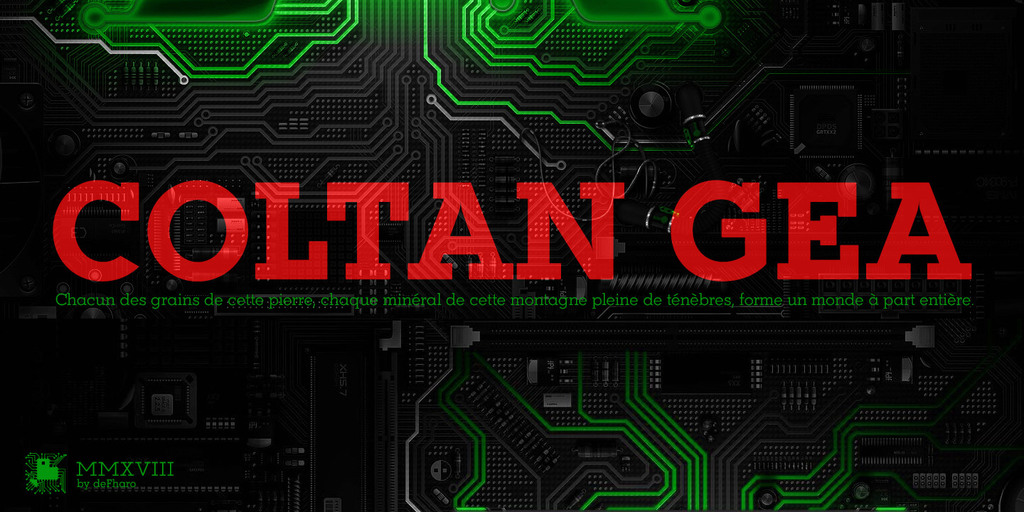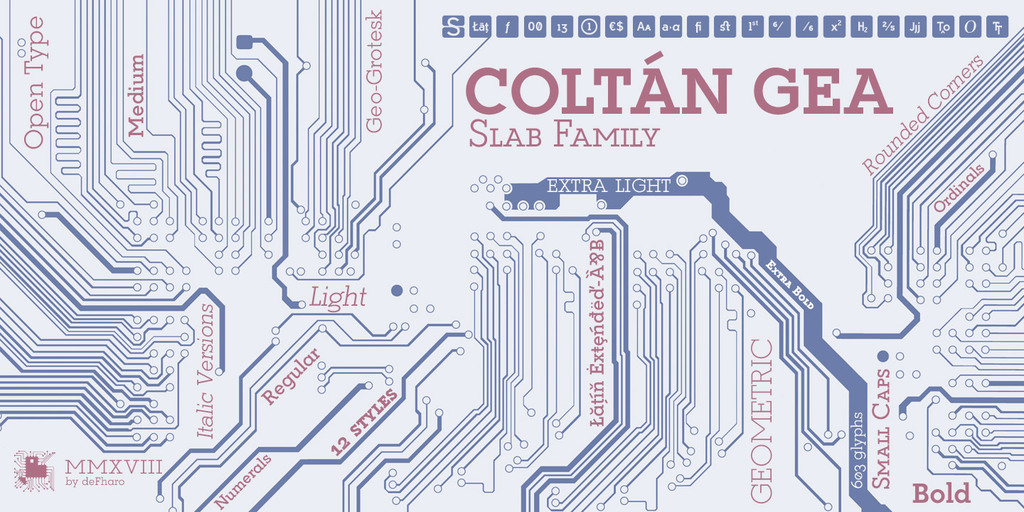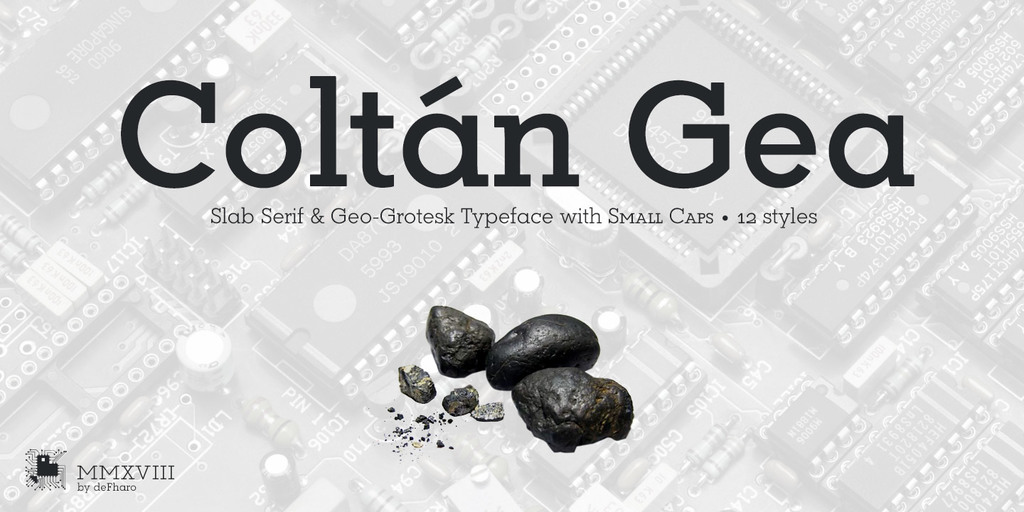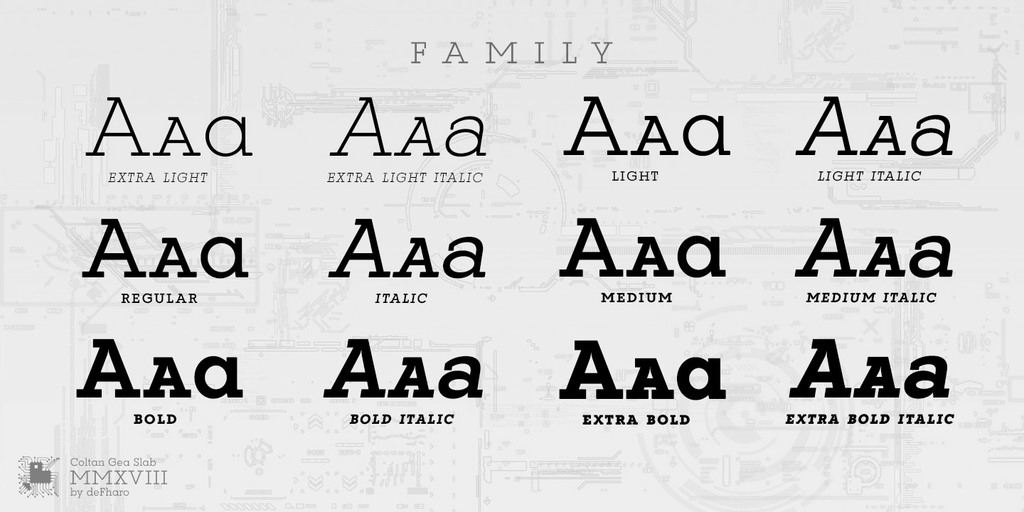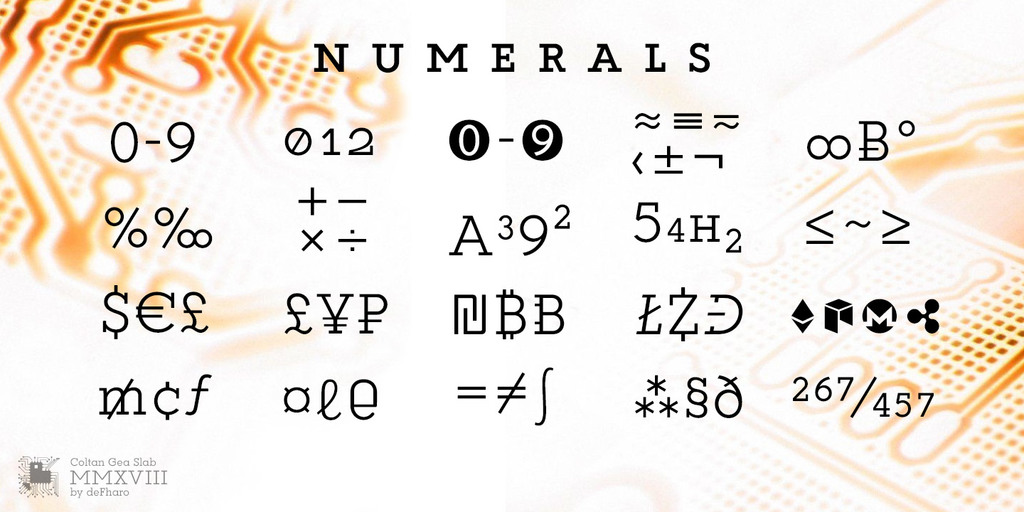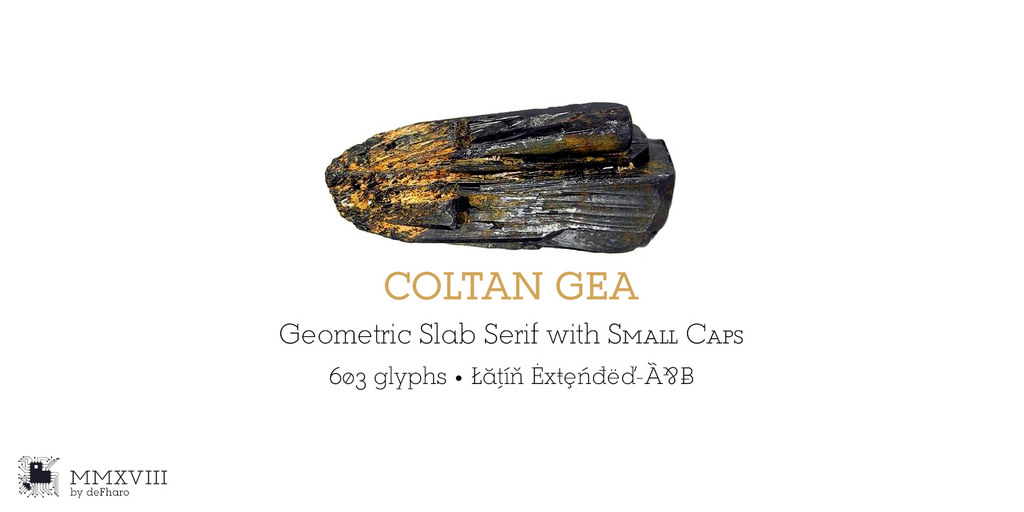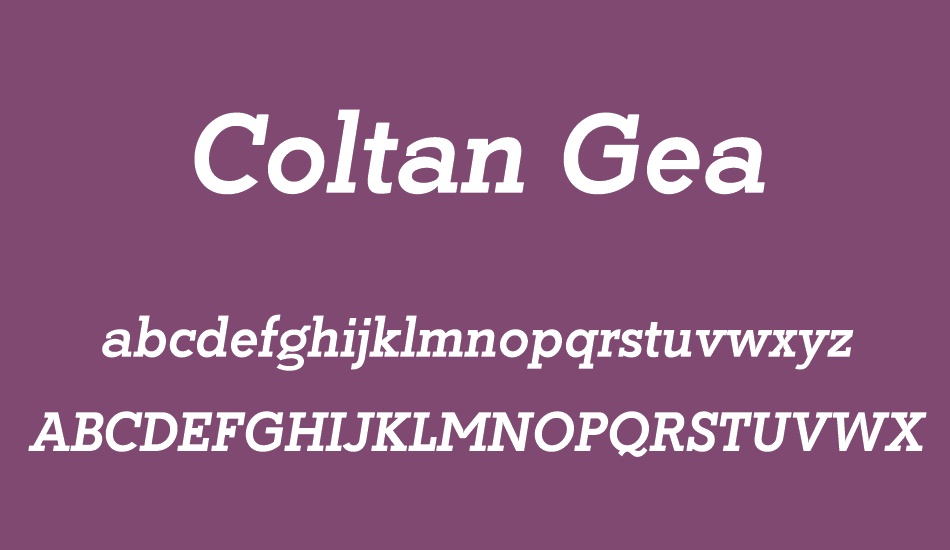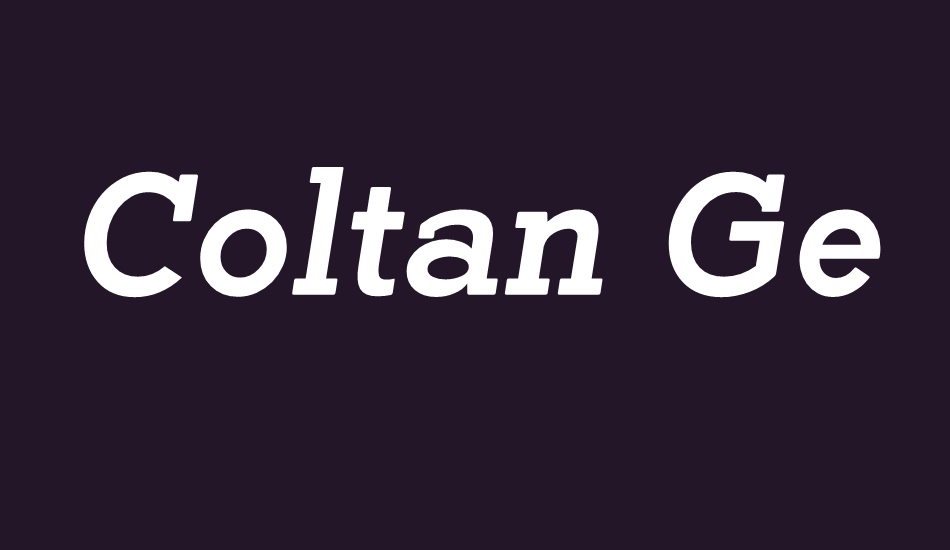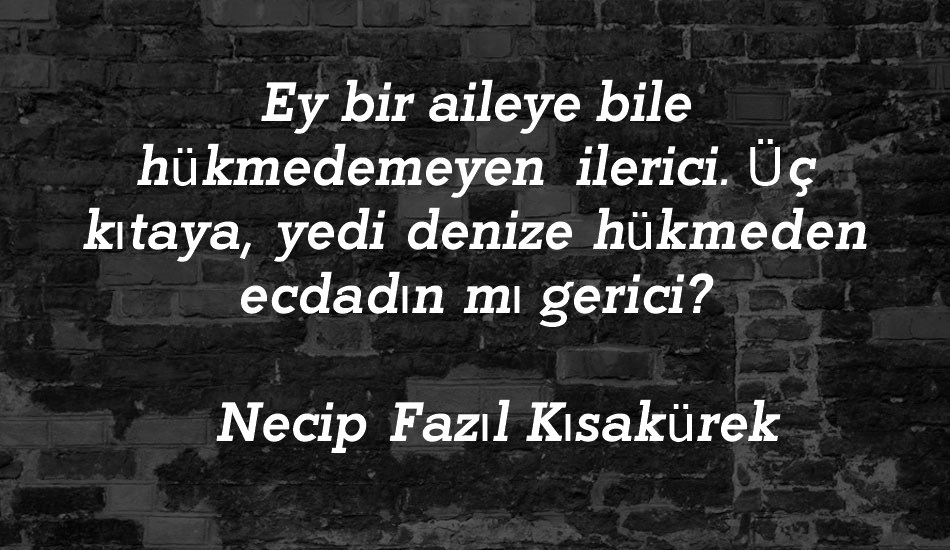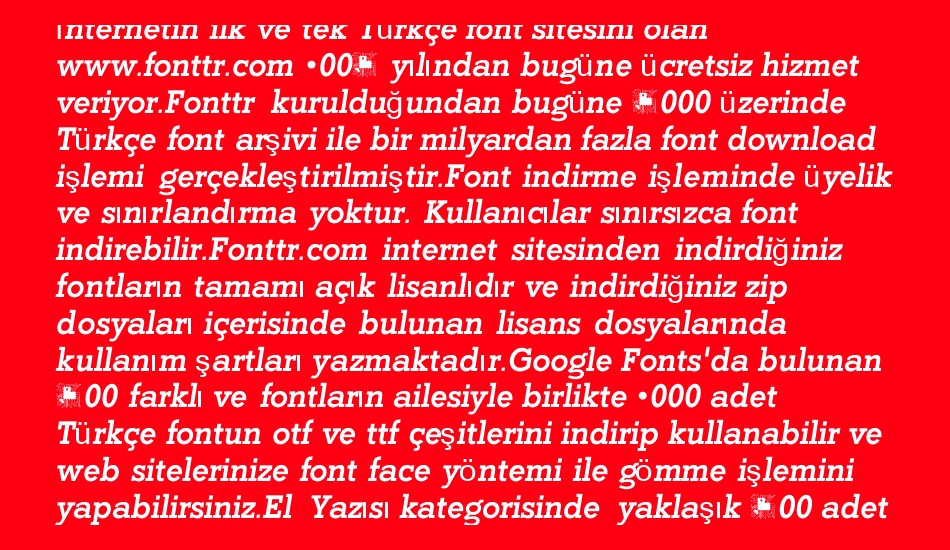
Coltan Gea
Coltan Gea is a Slab Serif typographic family with 6 Weights plus the italic versions all include small capital letters and cryptocurrency symbols.
It is a geometric, minimalist typeface, with neo-grotesque modulations and slightly rounded corners. The typeface has alternative letters and numbers, small caps and advanced OpenType functions. The proportions, metrics and kerning I have configured meticulously for a perfect reading in any size.
Coltan Gea font